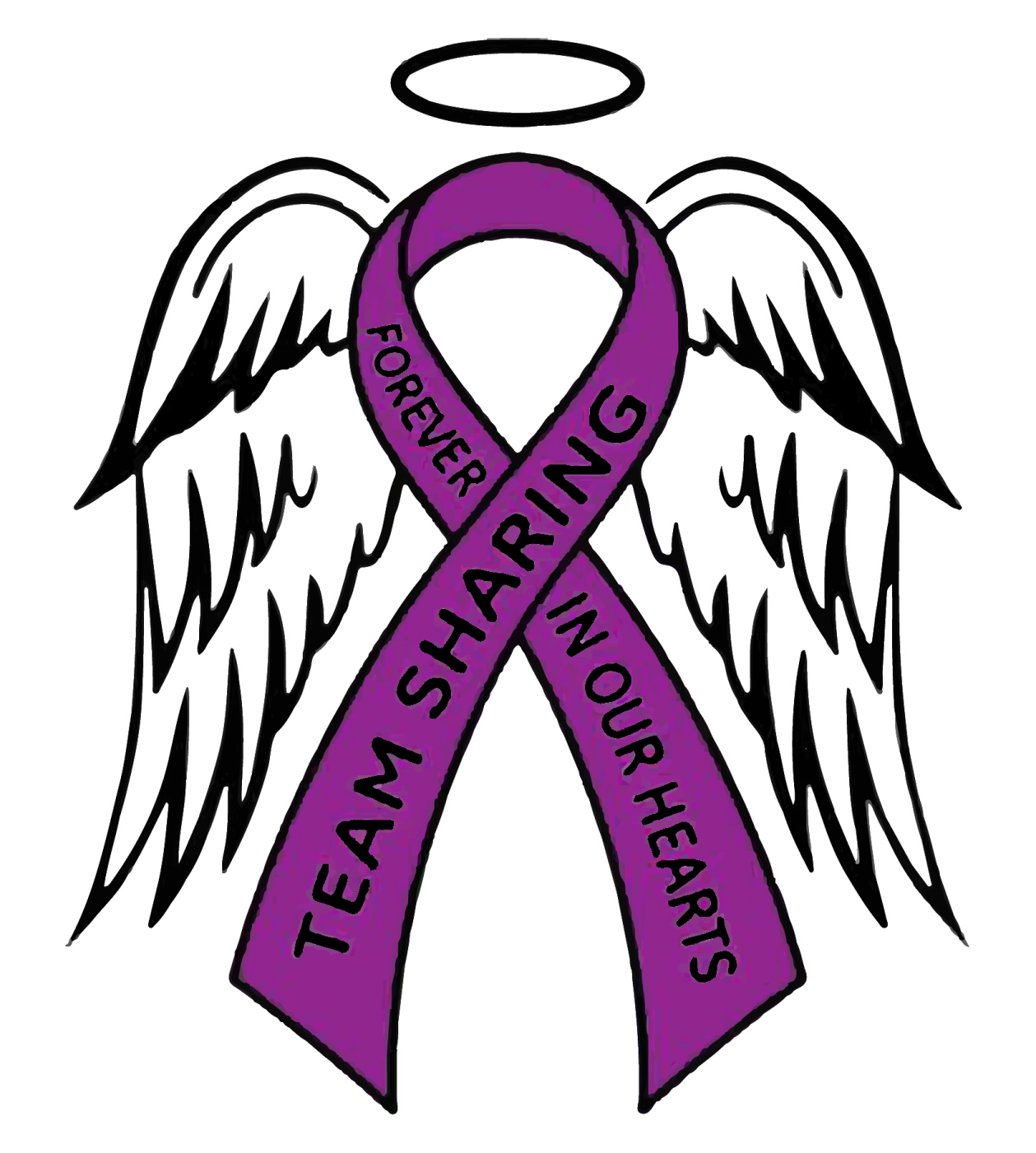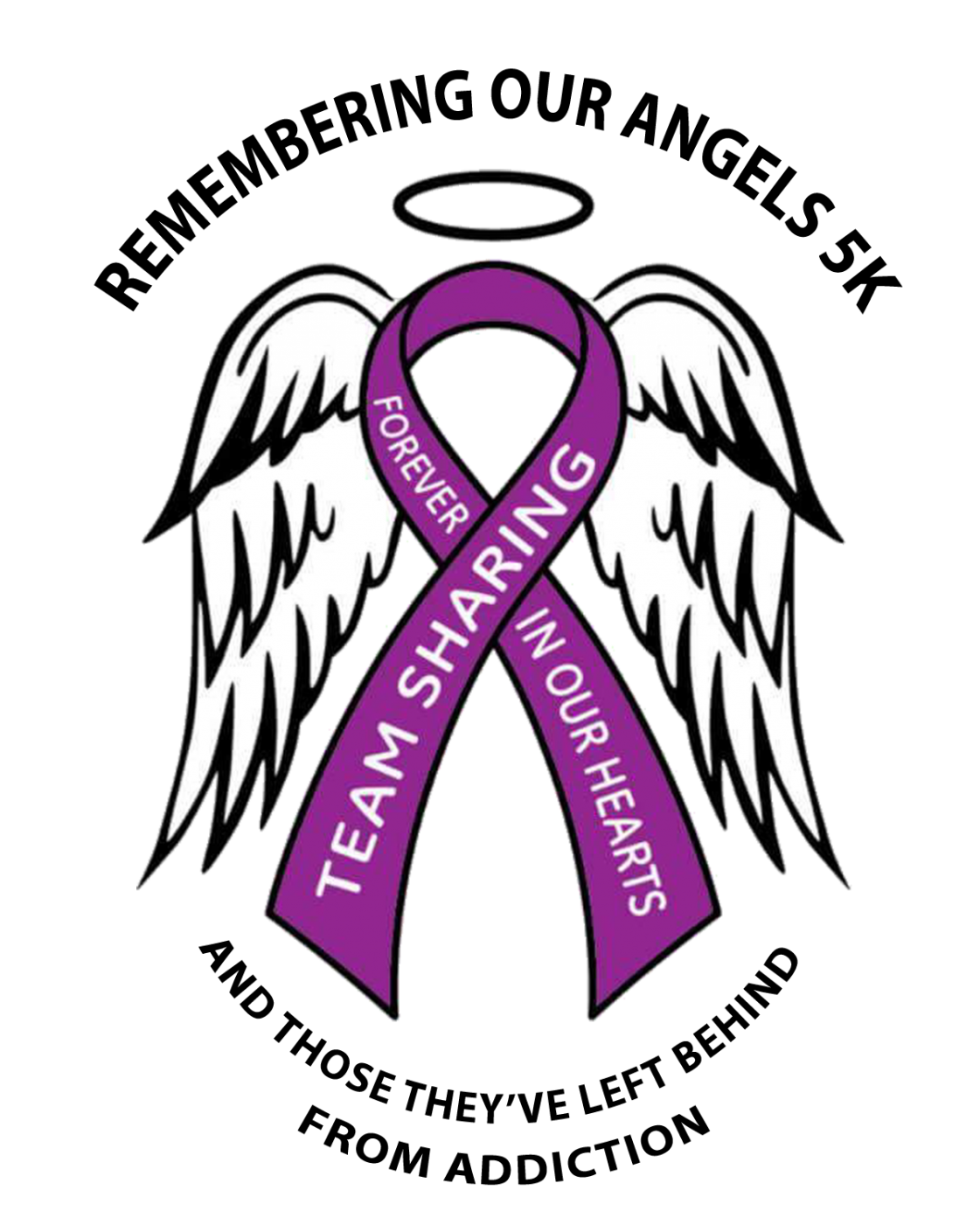
Can't identify this Rounded Font from a logo (Team Sharing)
Looking for help on this round font for a logo I'm resetting, the M and G are very particular. Thanks
The quality is so bad, it’s not much to go on.
If you can please provide better/other samples or provide more information. It’s a logo? Who uses it?
The more information we can gather, the easier the font identification. An image is just part of the puzzle.
From a logo for a local non profit, they only have this copy of it, so redrawing the logo as I took over their marketing, but can't seem to match the font to finish it
It looks like a widened setting of GE Inspira, a custom typeface for General Electric. Unless your nonprofit is affiliated with GE, I suggest avoiding using it.
Arial Rounded would work if it weren’t for its M (you need a center vertex on the M that sits above the baseline).
Rounded Mplus 1c is a bit closer, as is Abolon.
The GE Inspira looks like it may be it, they even have that same slightly bowed look to the characters. Will ask the group about editing that font to something else perhaps. Thanks for all the help!